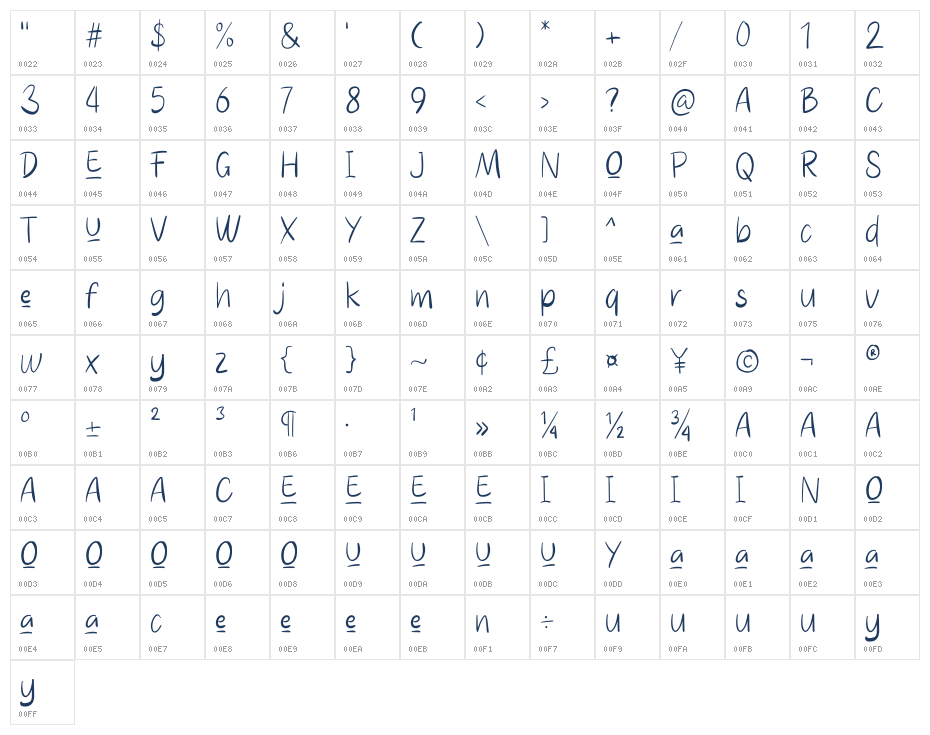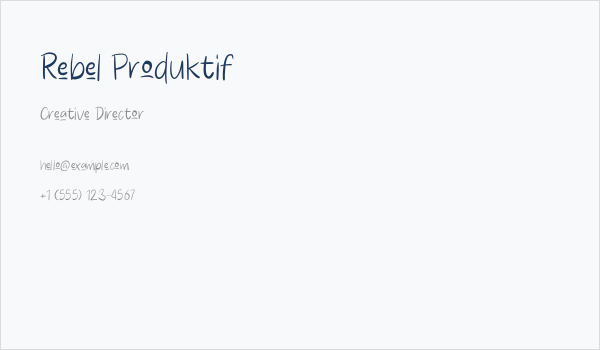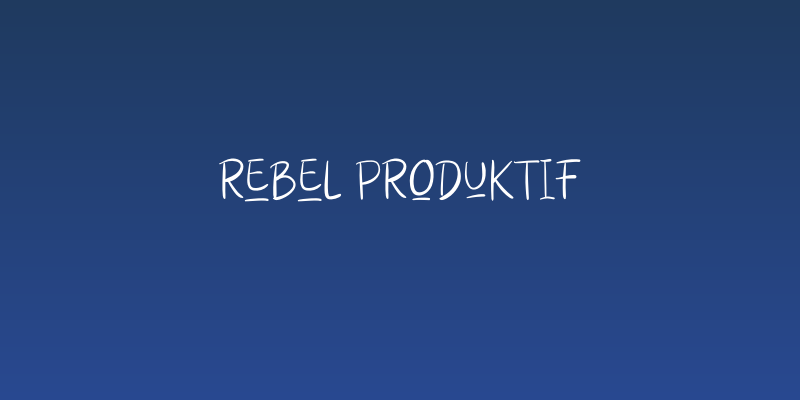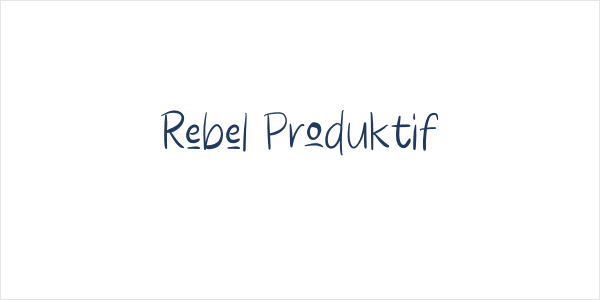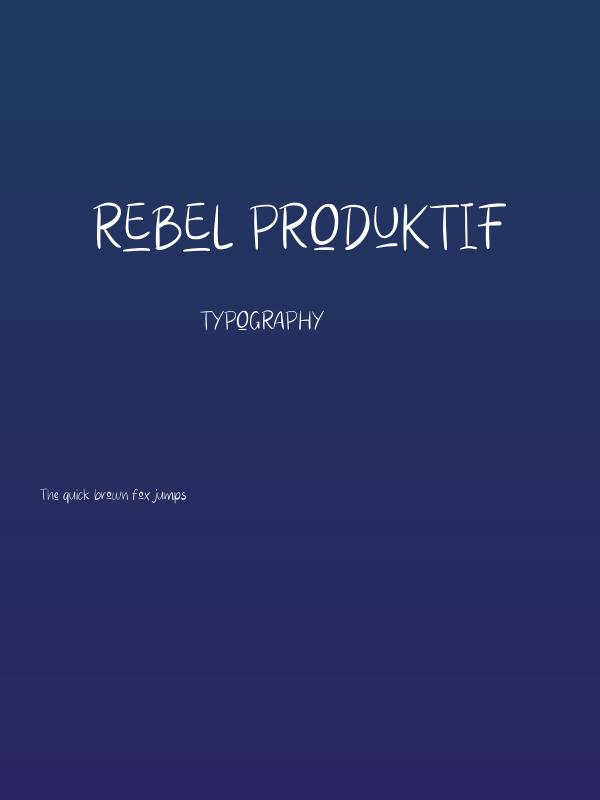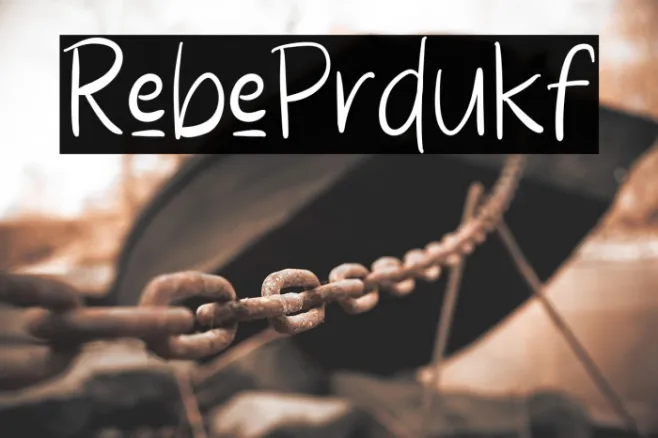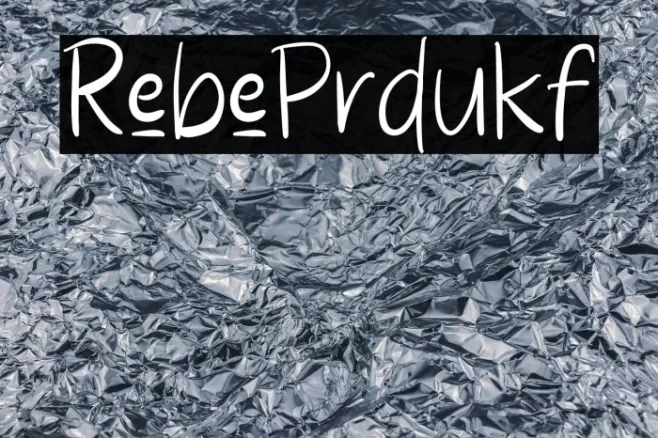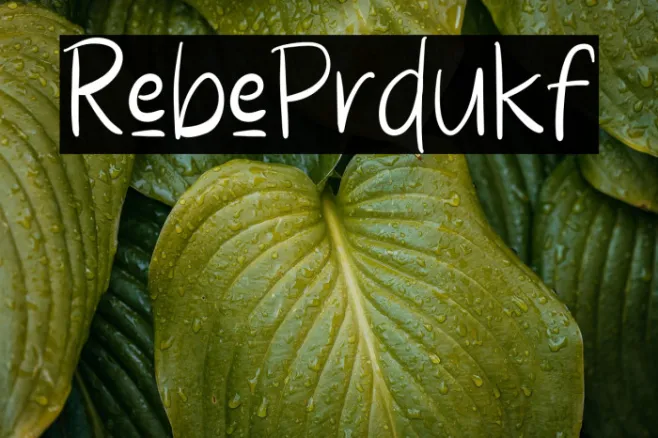
Rebel Produktif Font
Rebel Produktif Description
A casual, handwritten script font with a playful and informal style, featuring slightly irregular strokes and a friendly appearance.
| Overall Style | Casual, Playful, Informal |
| Use Case | Headlines, Body text, Invitations, Greeting cards, Children's books |